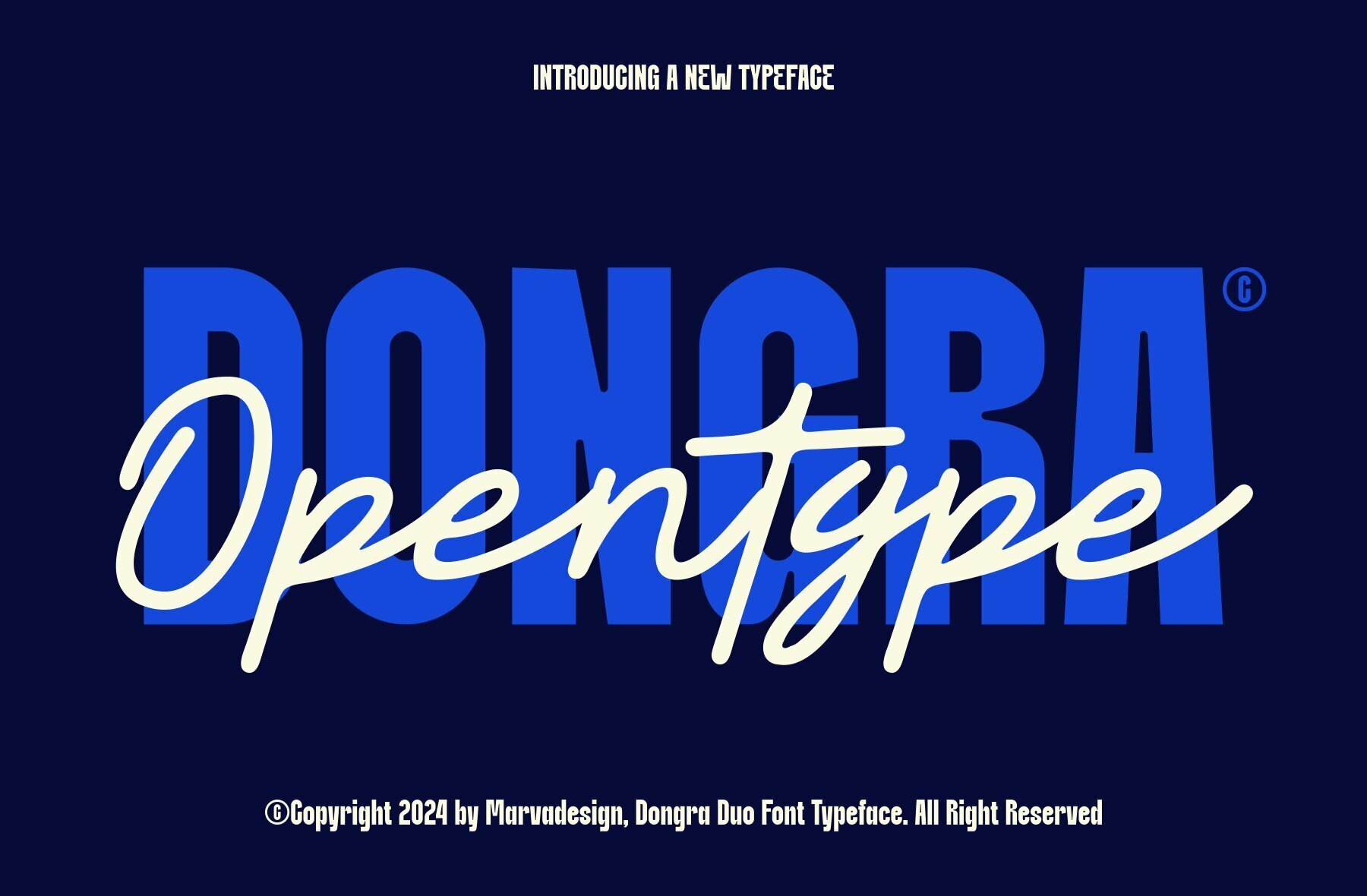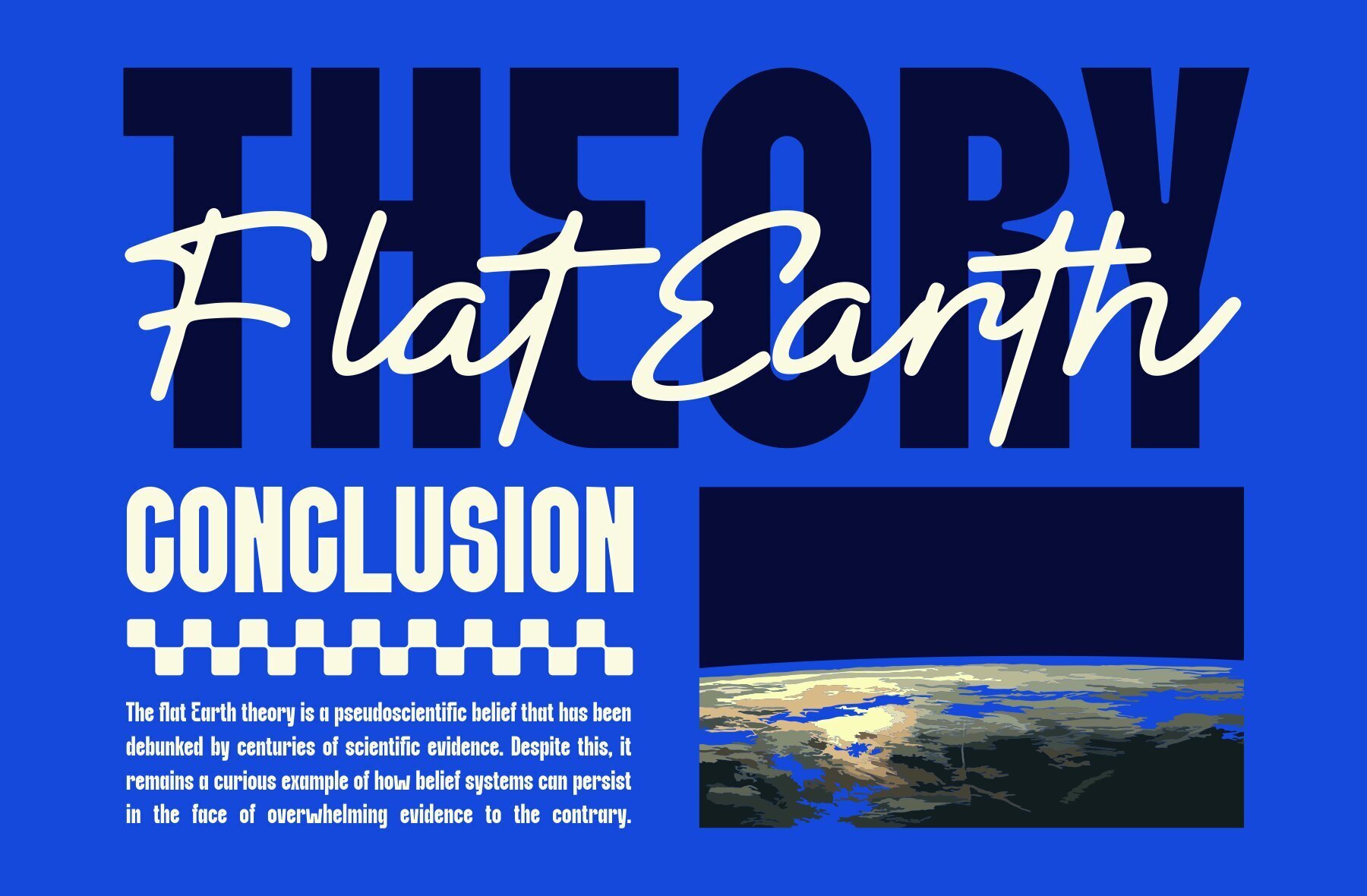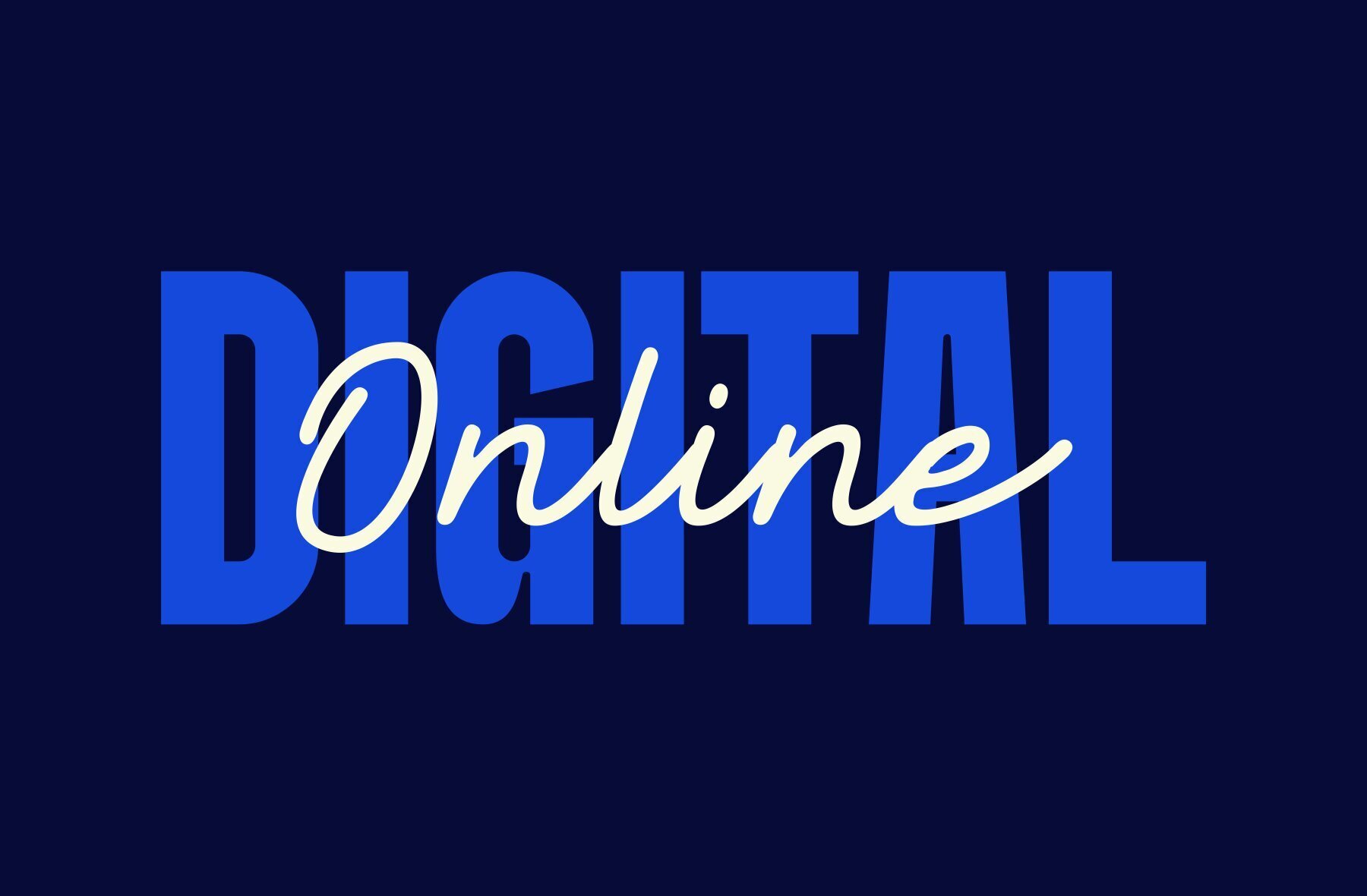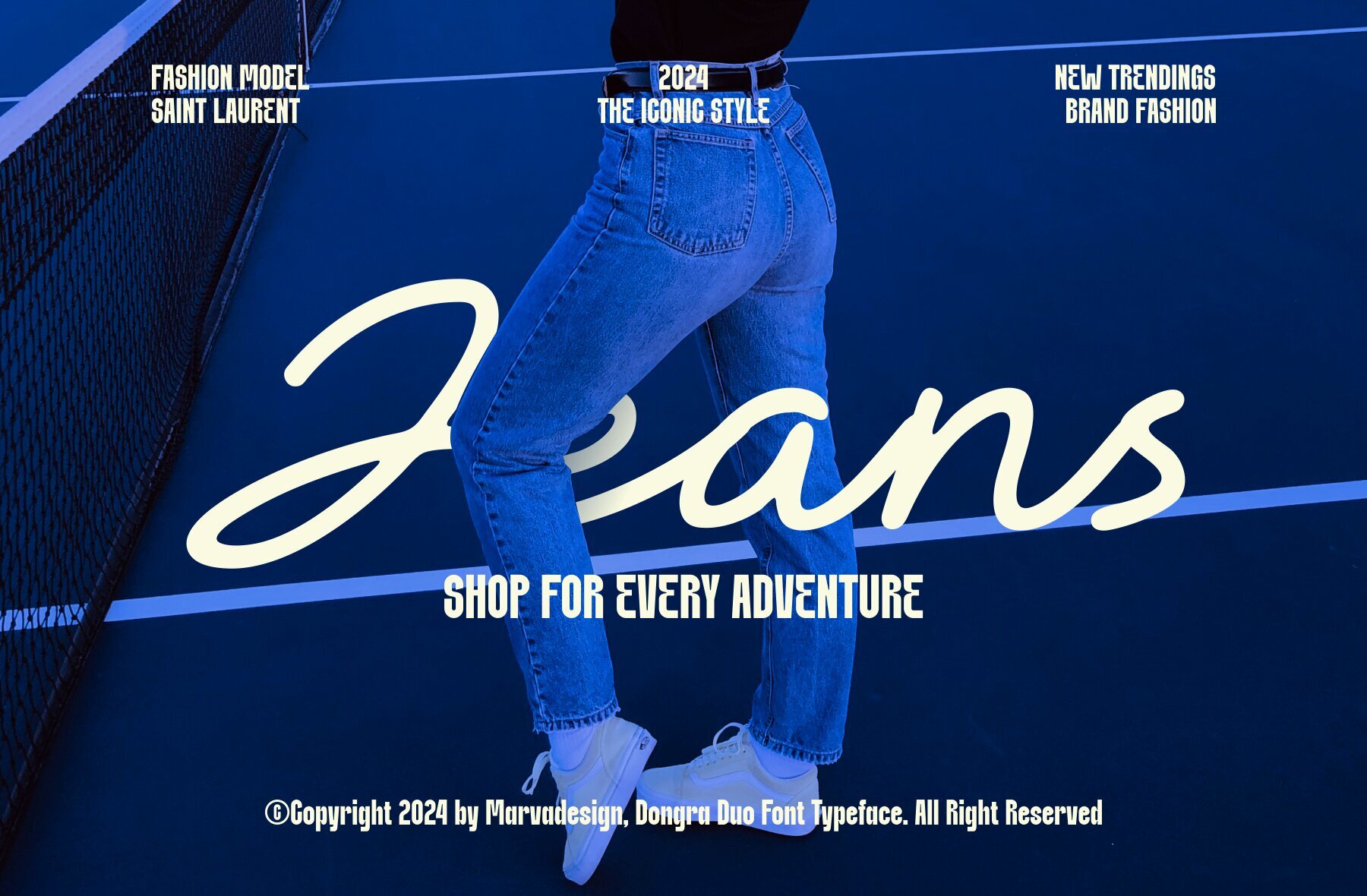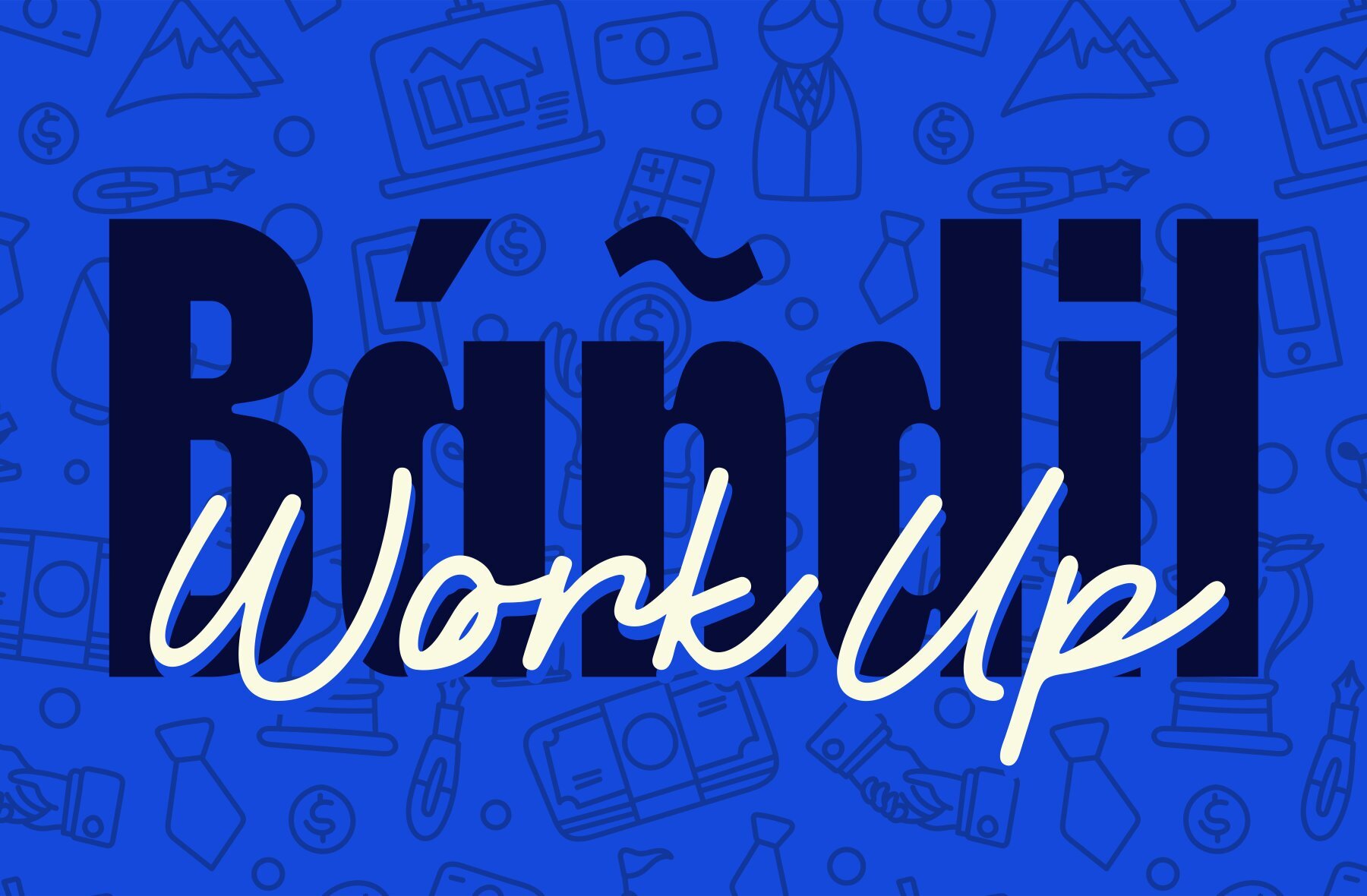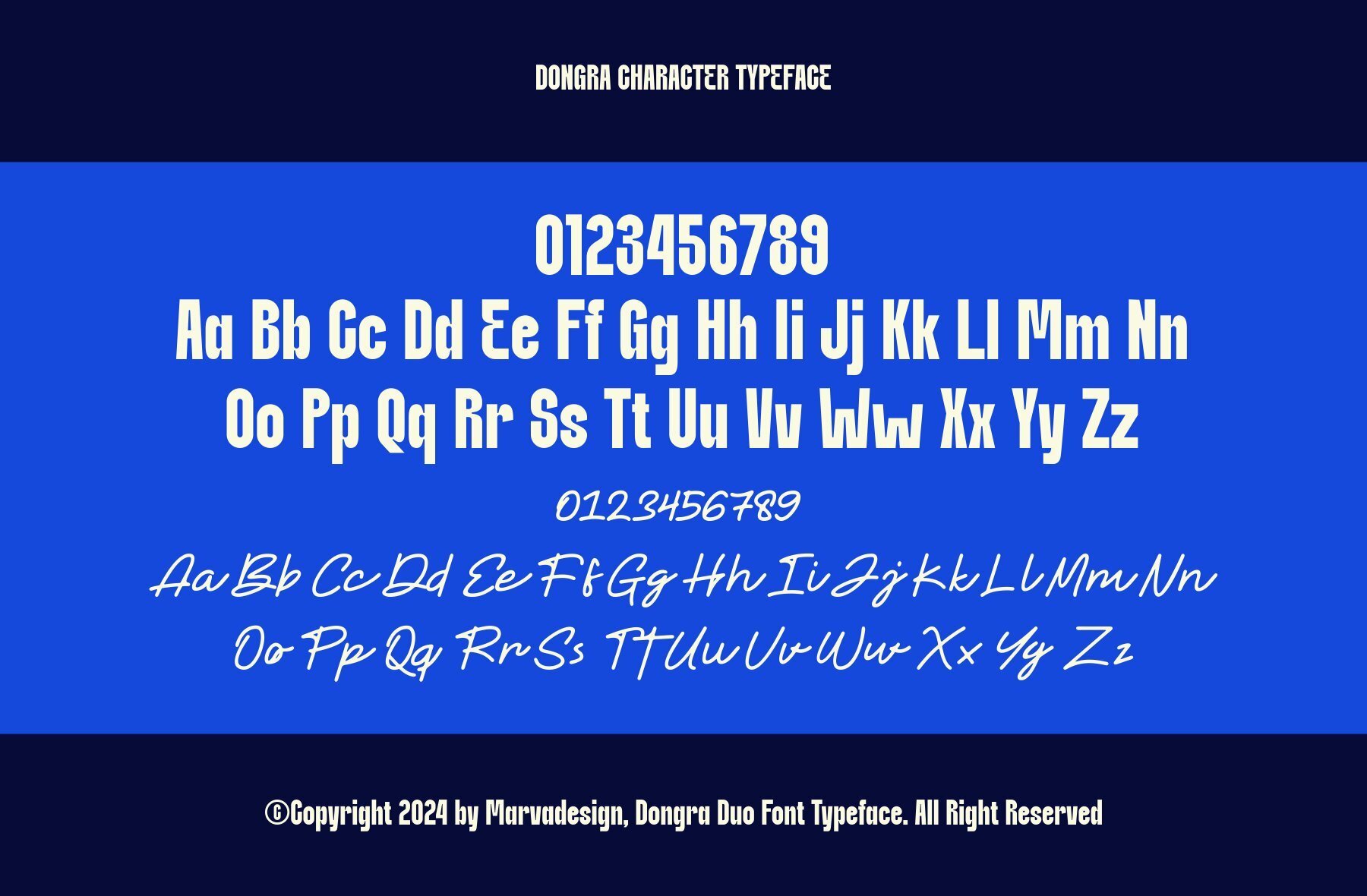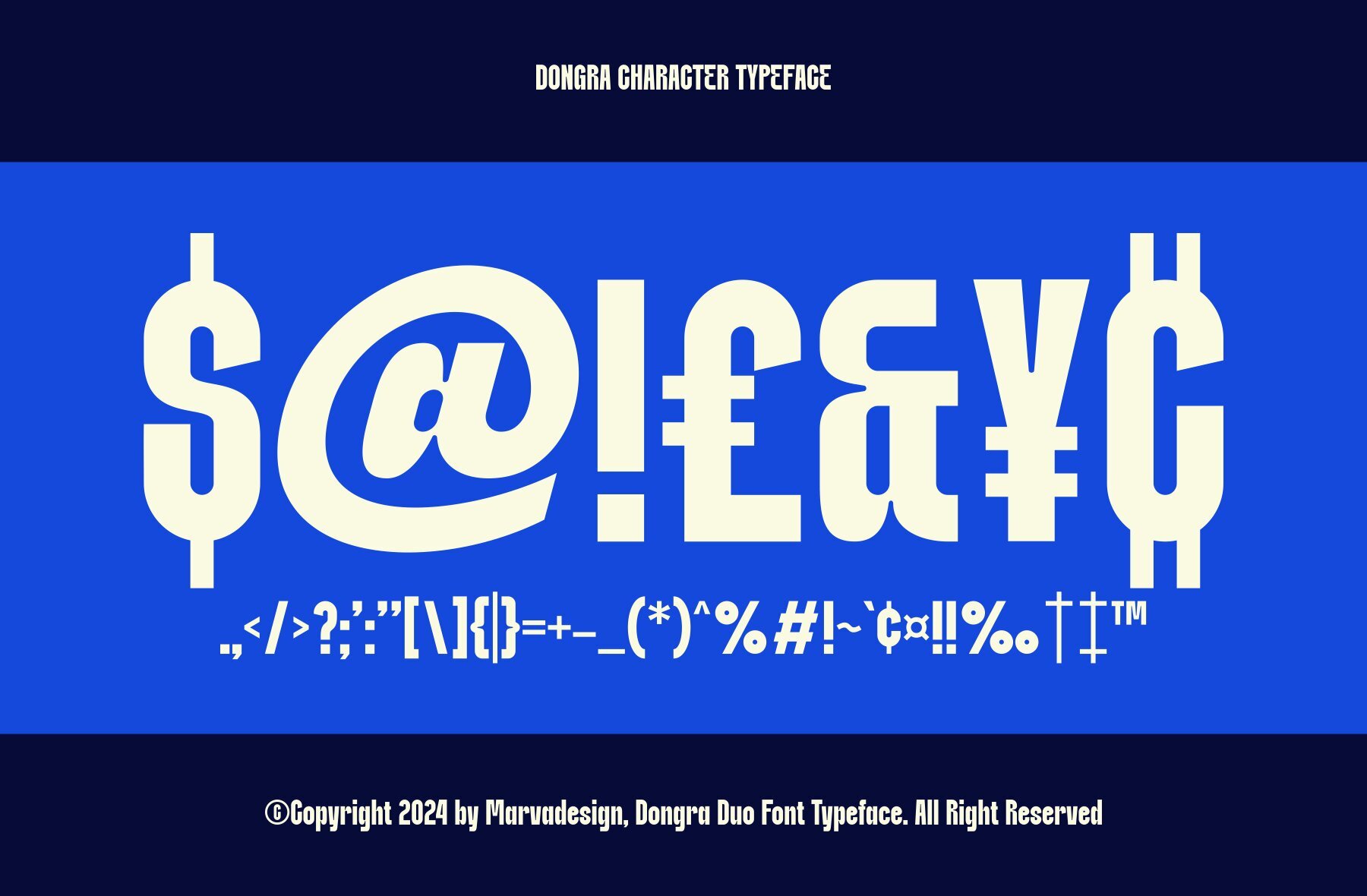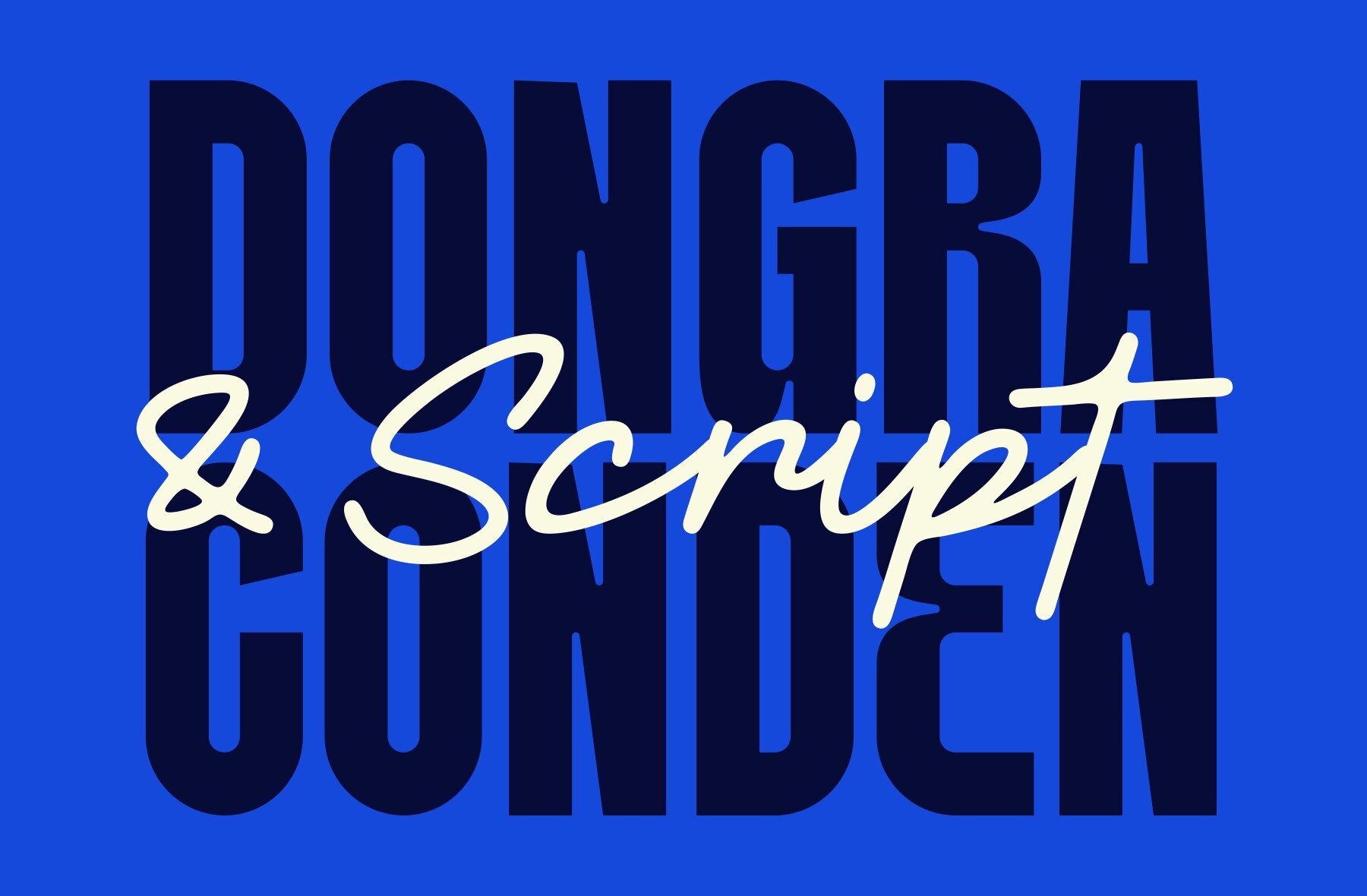
Dongra Font
Dongra is a versatile typeface that comes in two distinct styles: Condensed and Script, each catering to diverse design needs.
The Condensed style is modern, sleek, and minimalist, with simple lines and high legibility, making it suitable for both display and body text. Its versatility allows it to fit seamlessly into various applications such as headlines, posters, branding, and editorial design, offering a contemporary look without unnecessary embellishments.
The Script style has a handcrafted feel, delivering dynamic and expressive results. Its varied line thickness emulates natural handwriting, adding authenticity and personal touch to creative projects. The font flows elegantly from one letter to the next, making it ideal for invitations, greeting cards, logos, and any design where a personalized, handwritten style is desired.
Dongra provides a balanced mix of modernity and handcrafted charm, making it an excellent choice for diverse design projects.